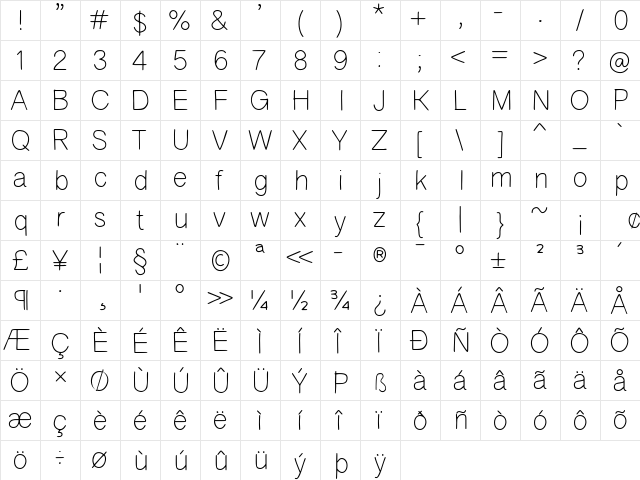
Kioves Regular
Design Context for Kioves Typeface
Kioves takes a measured approach to typography — its balanced proportions and neutral character make it a reliable workhorse for both digital and print work.